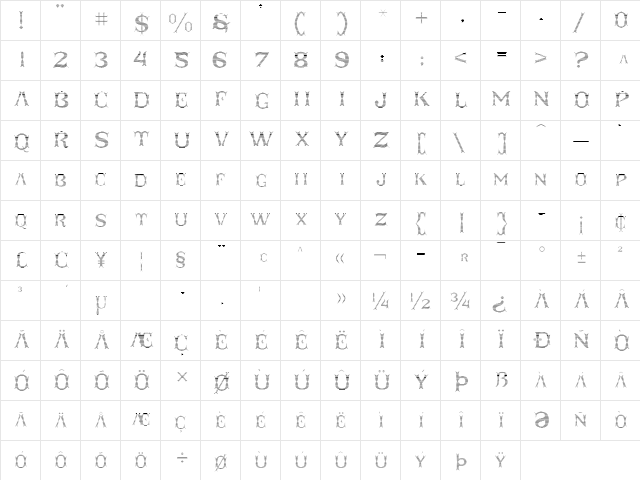
Taqueria Black Fill Lines Regular
Design Context for Taqueria Black Fill Lines Typeface
Taqueria Black Fill Lines takes a measured approach to typography — its balanced proportions and neutral character make it a reliable workhorse for both digital and print work.